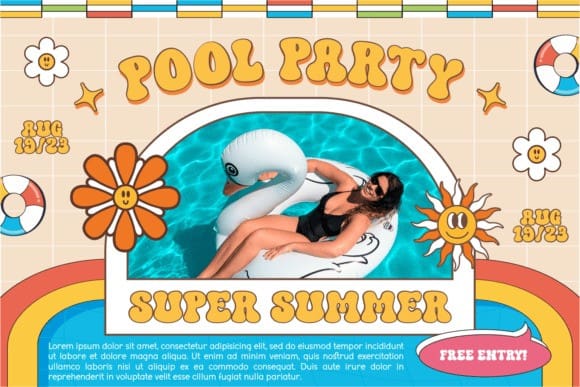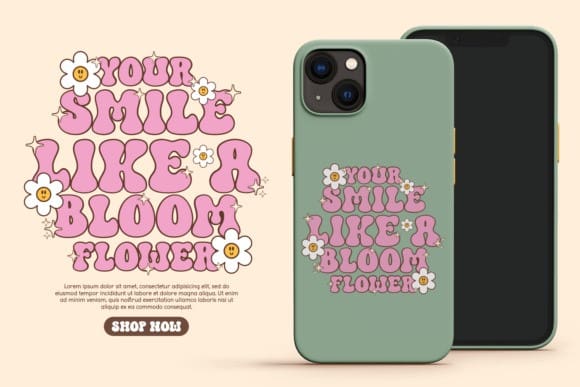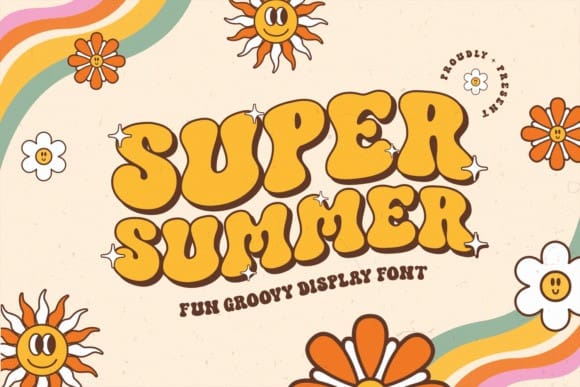
Super Summer Font
Super Summer Font, is a fun, groovy display font that will bring back the lovely hippie vibe of the 60s and 70s. Its cheerful and summery personality, will help you create one-of-a-kind designs.